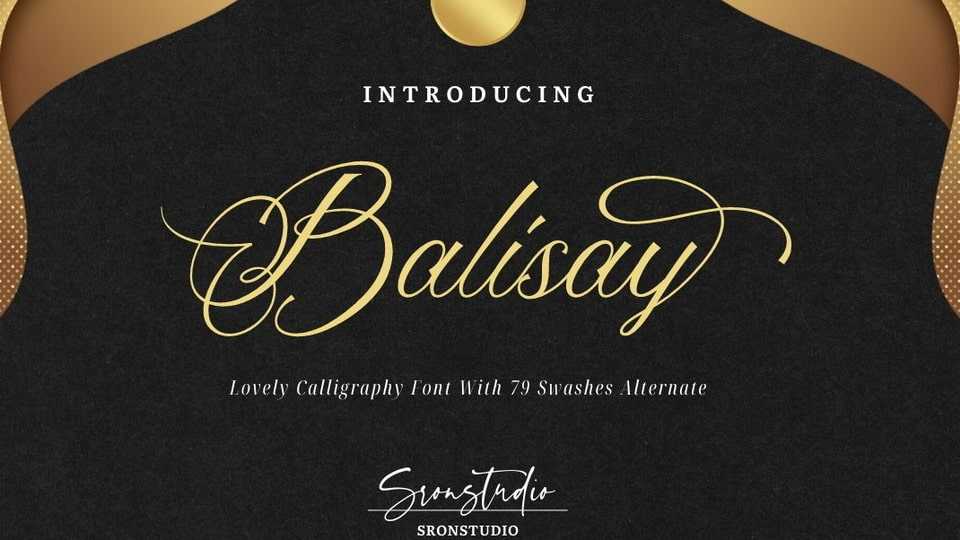
Download Balisay font, a beautiful calligraphy typeface with an elegant flow. Balisay is perfect for branding, invitation, stationery, wedding designs, social media posts, advertisements, label, photography, watermark, special events, and more.
Designer: Sronstudio